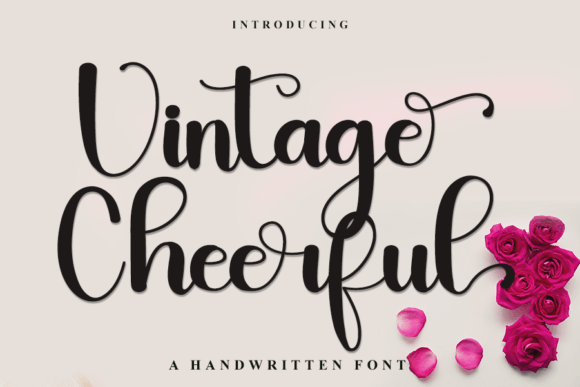
Dive into the world of Vintage Cheerful, a captivating script font that exudes both charm and sophistication. Inspired by the timeless beauty of classic calligraphy, this contemporary masterpiece adds an air of elegance to every creative endeavor.
Indulge in the allure of its graceful curves and playful strokes. Vintage Cheerful effortlessly captures the essence of a bygone era while embracing the modern spirit. It's the perfect companion for crafting business plans that demand attention, invitations that evoke a sense of occasion, and social media posts that spark joy and engagement.
With Vintage Cheerful at your fingertips, you'll elevate your designs to new heights. Its versatility knows no bounds, effortlessly adapting to a myriad of projects. Whether you're crafting logos that exude an air of authority or creating website banners that entice customers, Vintage Cheerful empowers you to make a lasting impression.
Join the ranks of discerning designers who have embraced the timeless appeal of Vintage Cheerful. Let its enchanting strokes inspire your creativity, add a touch of magic to your projects, and captivate your audience with every word.